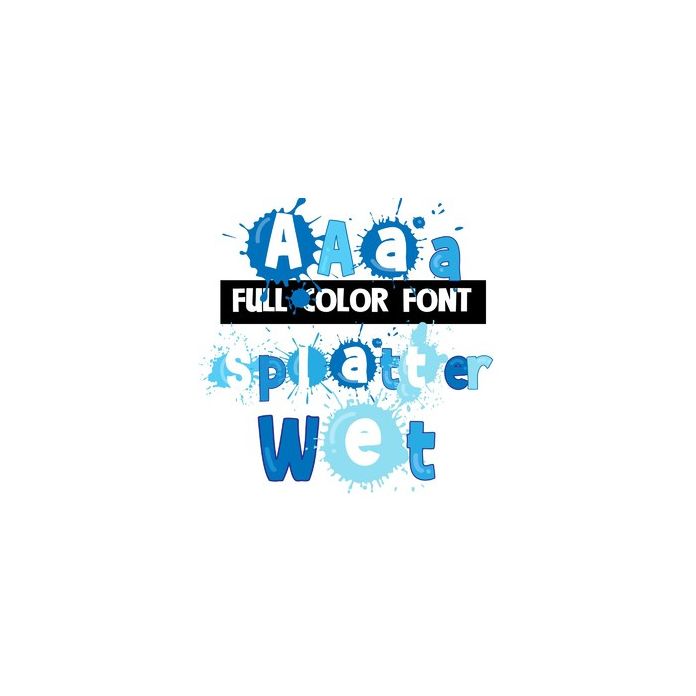
splatter wet color font
This full-color font has letters written inside paint splatters and a secondary alt case with both upper and lowercase letters with solid-color matching lettering. Access them through your system's character map or the glyph map in Silhouette Studio. This font works best for titles, displays, posters and more. Please note color fonts will show as black in non compatible programs. This font type is compatible with Silhouette Studio